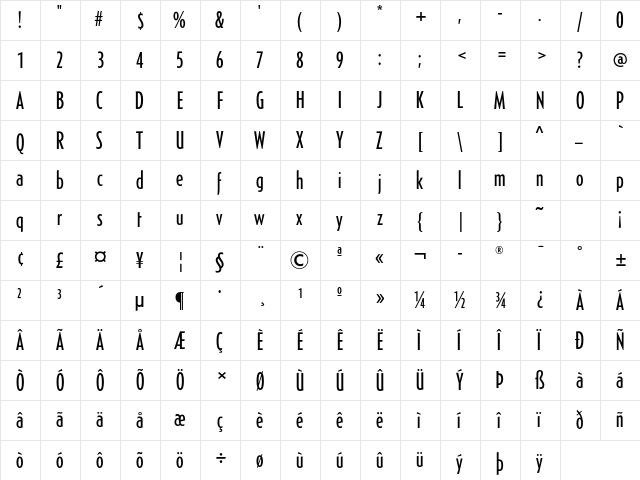
Generica Condensed Std Light Font Preview
Design Context for Generica Condensed Std Typeface
Generica Condensed Std offers clean, dependable letterforms without strong stylistic allegiance, making it a practical choice for designers who need flexibility. The delicate stroke weight brings airiness and refinement to layouts. Its narrow stance lets it pack a punch even in space-constrained designs.